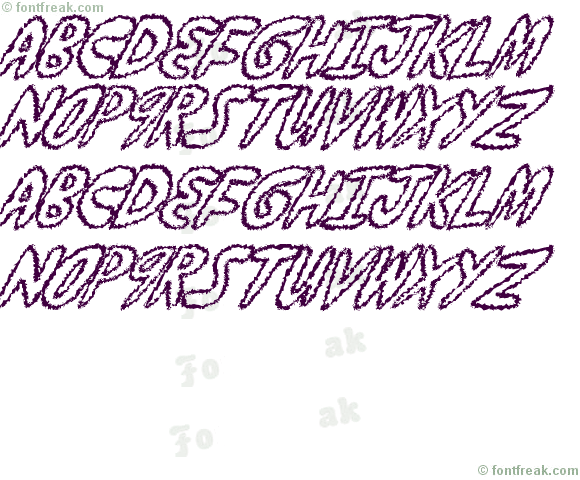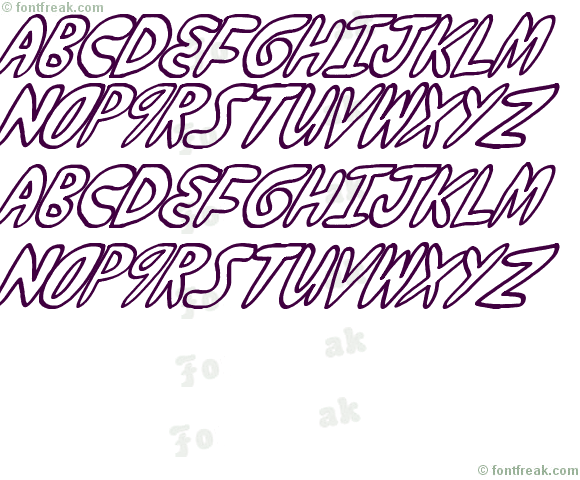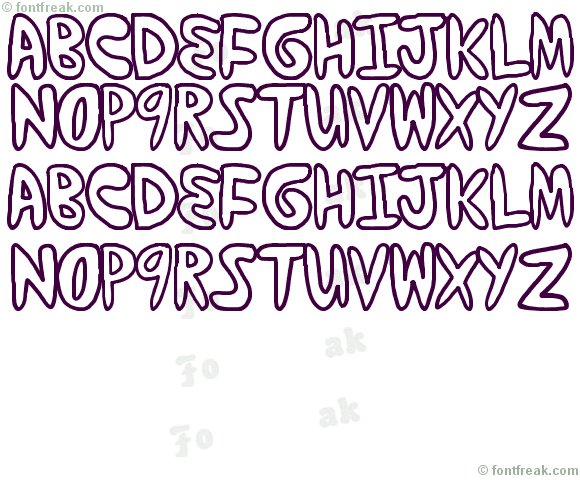
yumernub fuzzy
yumernub slanty
yumernub
The Yumernub Fuzzy font by XEROGRAPHER FONTS is a distinctive display typeface that captures attention with its playful and whimsical characteristics. As a decorative font, it features a unique slanty design that adds dynamism to any text. The stroke weight is varied, creating a delightful contrast that enhances the overall fuzzy aesthetic. The letters exhibit a soft, rounded appearance with irregular edges, evoking a sense of warmth and creativity. This font’s spacing is thoughtfully designed, ensuring legibility while maintaining a fun, casual vibe.
Yumernub Fuzzy is particularly well-suited for a variety of creative projects. It shines in playful contexts such as children’s book covers, where it can capture the imagination of young readers. Additionally, it works wonderfully for promotional materials for quirky cafes or restaurants, helping to convey a friendly atmosphere. This font is also ideal for event invitations, especially for casual gatherings or birthday parties, where its lighthearted nature can set the tone. Graphic designers will find this font a valuable addition for creating eye-catching social media graphics or playful branding elements that stand out in a crowded market.
The target audience for the Yumernub Fuzzy font includes graphic designers, small business owners, and content creators looking to infuse their projects with a sense of fun and creativity. By offering a free download of the Yumernub Fuzzy font, XEROGRAPHER FONTS provides an accessible resource for those seeking to enhance their designs without breaking the bank.
What sets the Yumernub Fuzzy font apart is its ability to blend playfulness with readability, making it a versatile choice for a wide range of applications. Its unique charm and casual elegance ensure that any project using this font will leave a memorable impression.